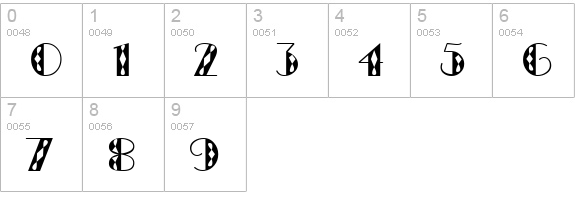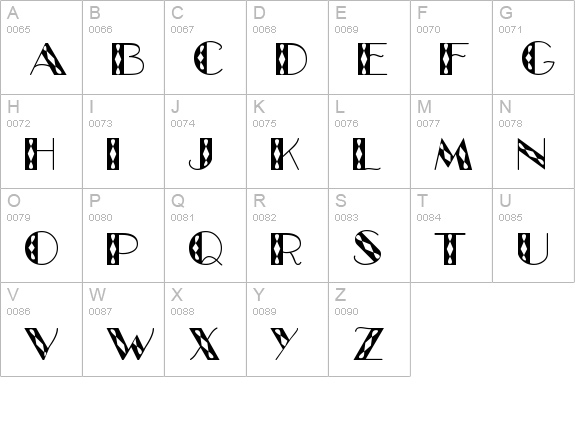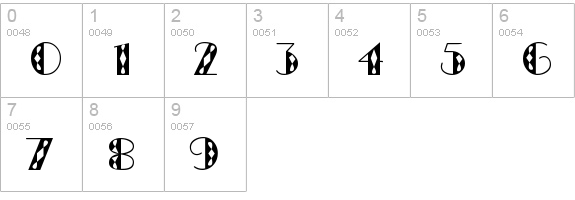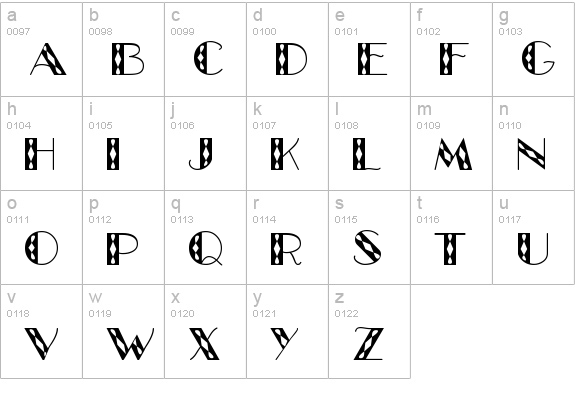
GlitzyJewel Font Details
GlitzyJewel font is a stunning display typeface that exudes elegance and sophistication. Its intricate details and ornate flourishes make it perfect for adding a touch of glamour to any design project. The font features luxurious curves and sparkling accents that give it a truly dazzling appearance. What's even better is that GlitzyJewel font is available for free download at FontsMarket.com. This means you can easily access this exquisite font and use it in your creative ventures without any cost. Whether you're designing invitations, logos, or social media graphics, GlitzyJewel font will surely elevate your work to a whole new level of opulence. Download it today and add a touch of luxury to your designs!